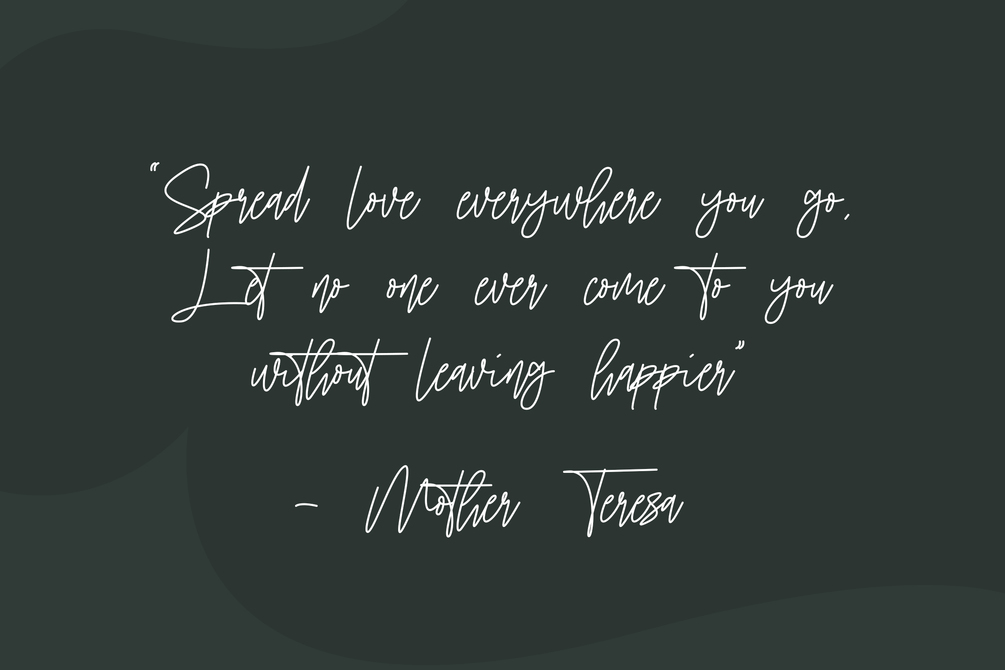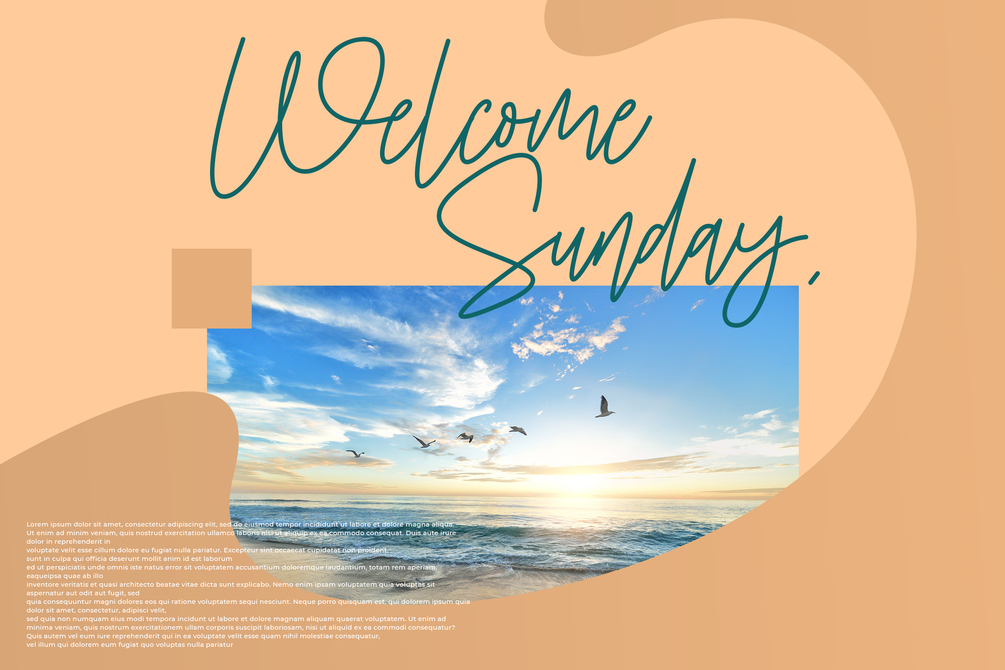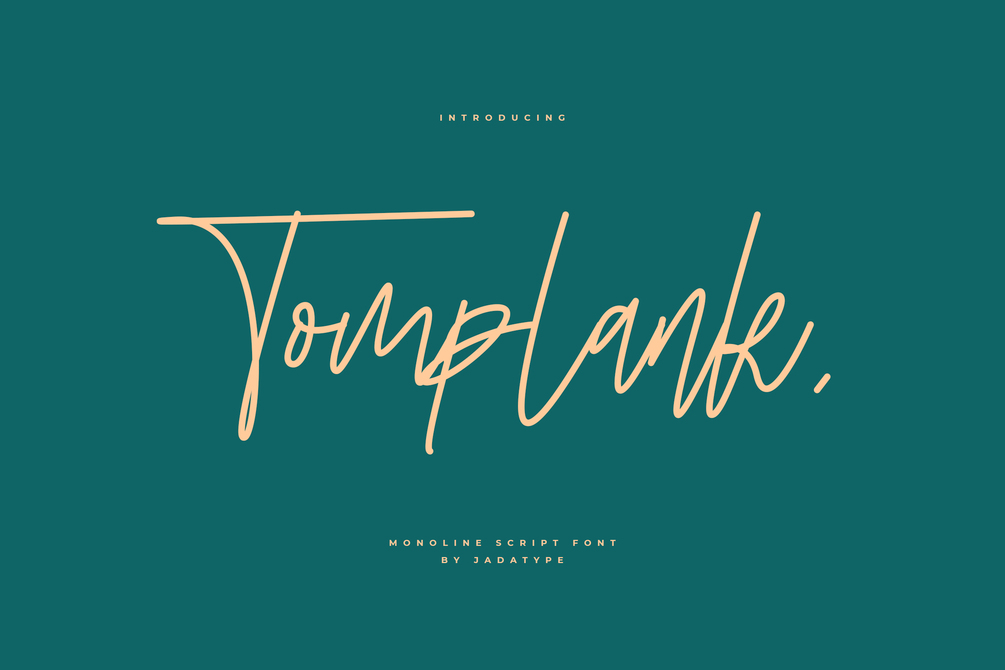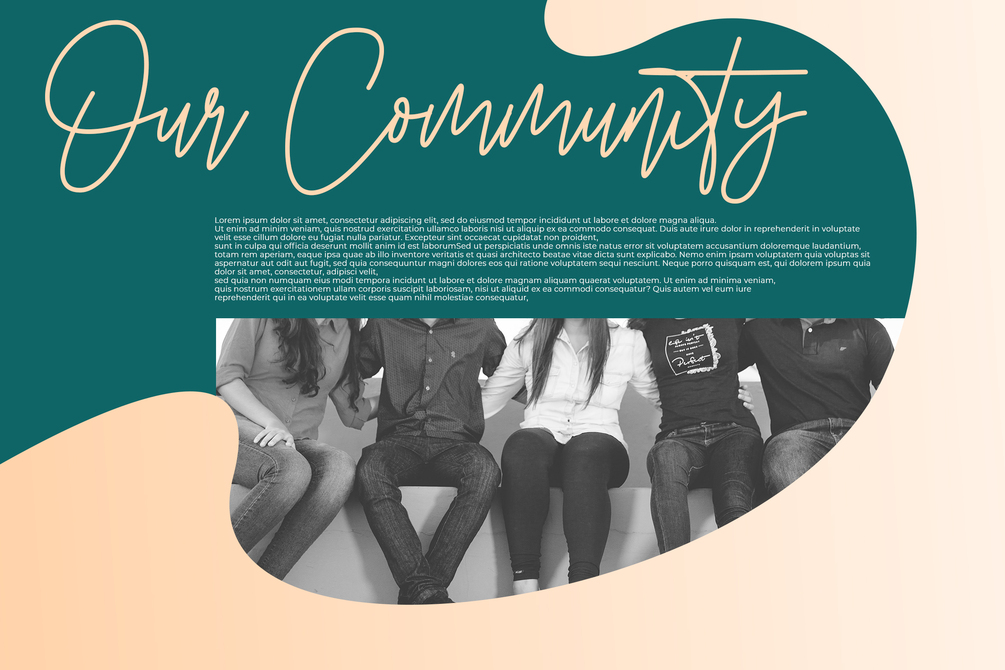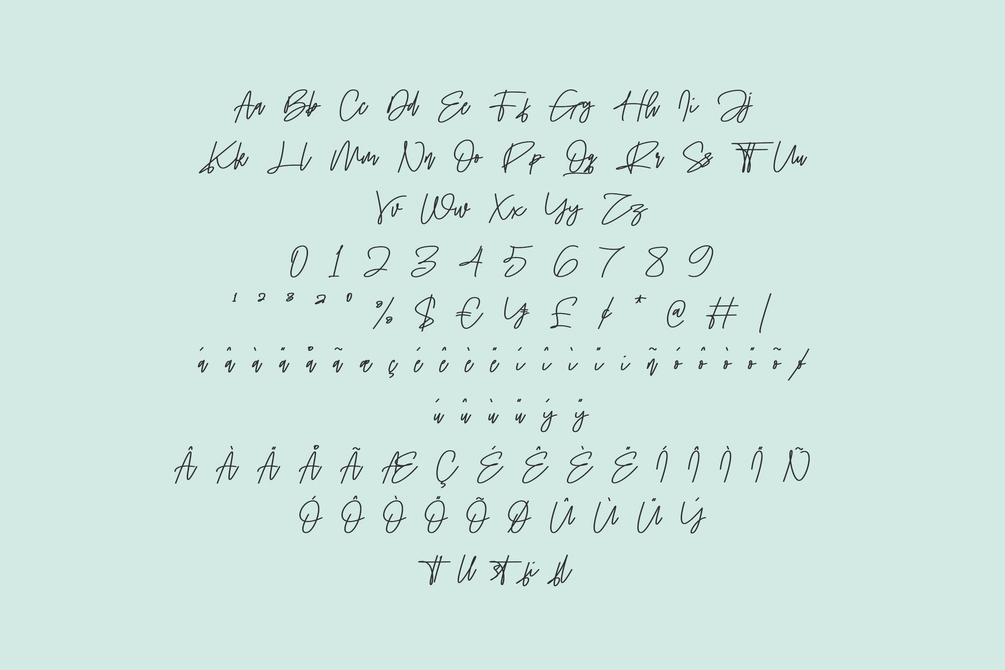
Tomplank Font
Tomplank is a script font that comes with a monoline style. suitable for crafting, branding, social media, and so on. contains standard English letters, numbers, punctuation, and several accents that support multilingualism.